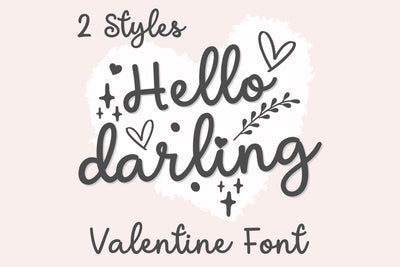
Hello Darling Font | Cute Valentine's Font | Romantic Font
The Hello Darling Font is a romantic, charming, and playful typeface designed to bring a heartfelt touch to your creative projects! This cute handwritten font is perfect for all things love-inspired, whimsical, and elegant, ideal for crafting, Procreate, Cricut, Silhouette, and Canva users alike.
With its smooth, flowing strokes and heart-accented details, Hello Darling is a wonderful choice for everything from Valentine’s Day designs and wedding invitations to greeting cards, t-shirts, mugs, and social media quotes. Add a touch of romance to your projects or keep it effortlessly chic—the possibilities are endless!
✔ 2 Font Styles: Hello Darling Regular & Hello Darling Bold
Perfect for:
Romantic stationery and invitations
Wedding Invitations
Gifts and home decor
Creative digital and physical designs
The Hello Darling Font can be used for a wide range of design projects.